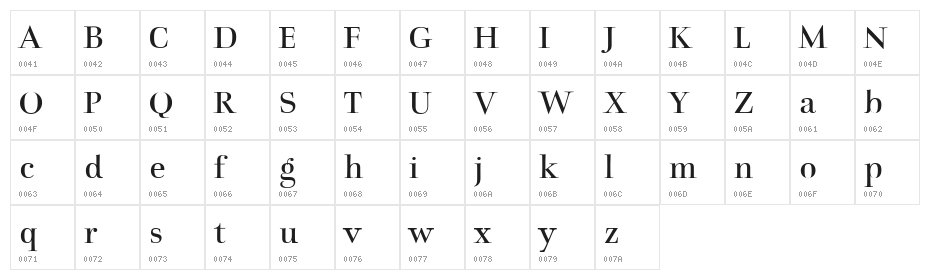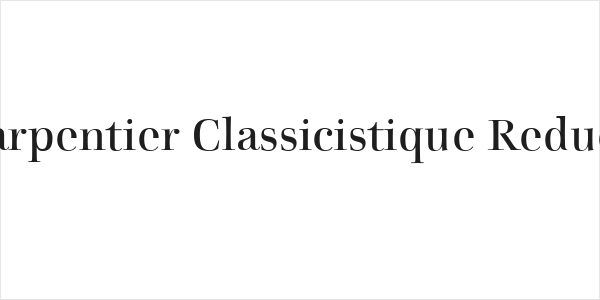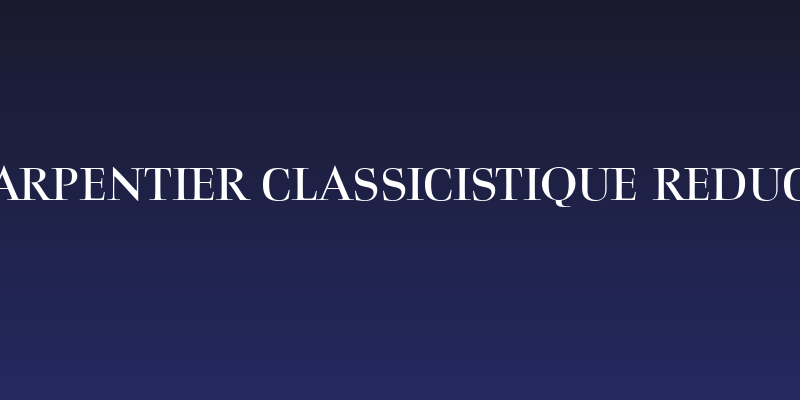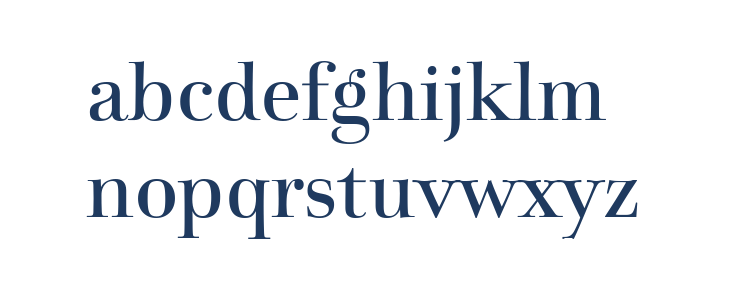
Charpentier Classicistique Reduced Font
Charpentier Classicistique Reduced Description
This font exhibits a classic serif style with elegant and refined strokes. The uppercase letters are characterized by sharp serifs and a balanced proportion, giving them a formal and sophisticated appearance. The lowercase letters maintain a consistent style with smooth curves and a slight contrast in stroke thickness, enhancing readability. The overall design is reminiscent of traditional typography, offering a timeless and authoritative feel. The numerals are clear and distinct, matching the style of the alphabet. Special characters are designed with the same attention to detail, ensuring consistency across all glyphs.
| Use Case | Body text, Headlines, Editorial design |
| Proposed Projects | Ideal for formal documents, book typesetting, branding materials, and editorial design. |